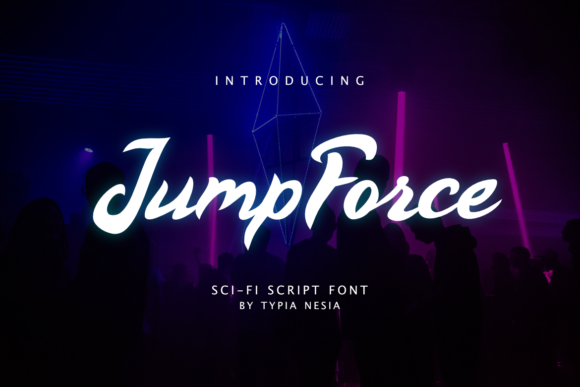
Journey into a typographical realm where exuberance meets distinction – presenting Jump Force, the display font poised to transform your creative endeavors into captivating spectacles. This font, meticulously crafted by the visionary designers at Typia Nesia, bursts with energy, demanding attention with every letter it adorns. Jump Force is not merely a font; it's an artistic gateway, inviting you to unleash your individuality and create masterpieces that resonate with your audience.
Immerse yourself in a world of boundless possibilities, where Jump Force becomes your creative accomplice. Its bold and playful characters possess an infectious vitality, breathing life into your designs, websites, posters, and social media posts. Picture your words leaping off the screen, commanding attention with their dynamic presence. The energy embedded in each letterform ensures that your message cuts through the noise, leaving a lasting impression on all who encounter it.
Step into the spotlight with Jump Force, the font that exudes confidence and charisma. Its striking appearance captivates audiences, inviting them to delve deeper into your content. Whether you're crafting a captivating logo, designing an unforgettable brochure, or captivating your social media followers, Jump Force serves as your steadfast ally, amplifying your message and leaving an indelible mark.
With Jump Force at your disposal, mediocrity becomes a thing of the past. Embrace the extraordinary and watch as your creative visions soar to new heights. This font is not just a collection of letters – it's a gateway to boundless creativity, an invitation to break free from the ordinary and embrace the extraordinary. Unleash your imagination and let Jump Force ignite your artistic spirit.